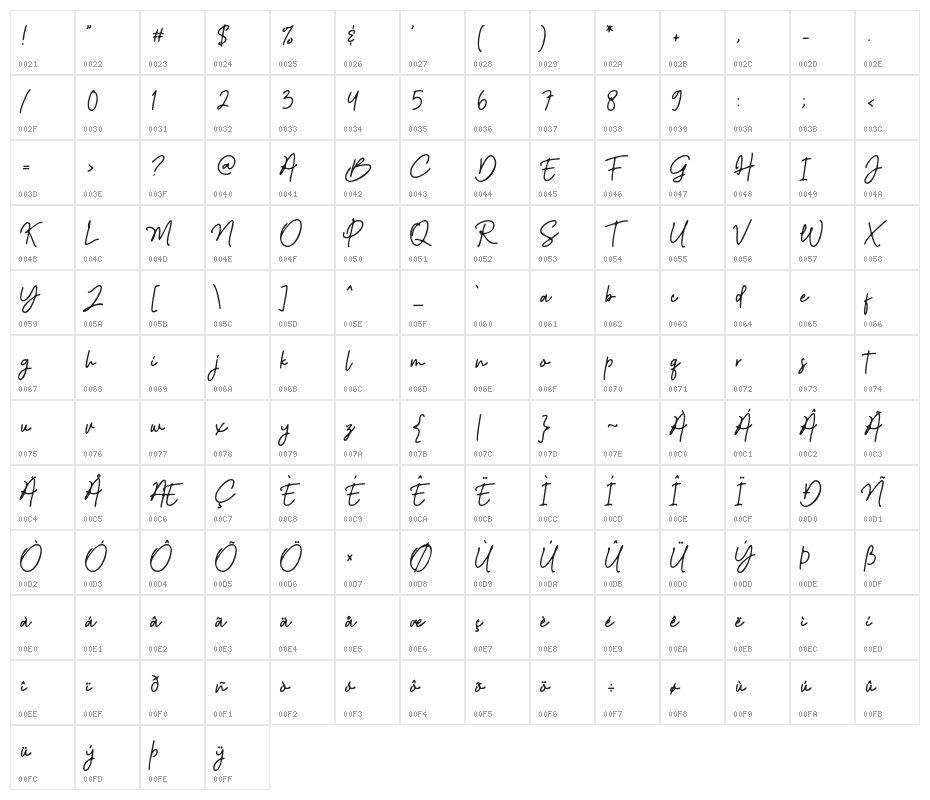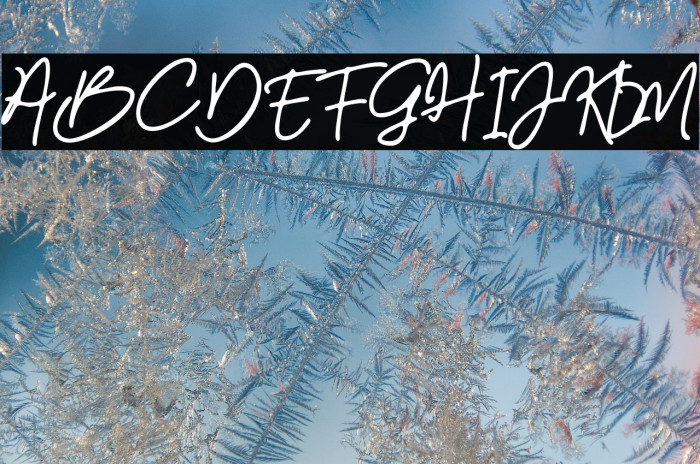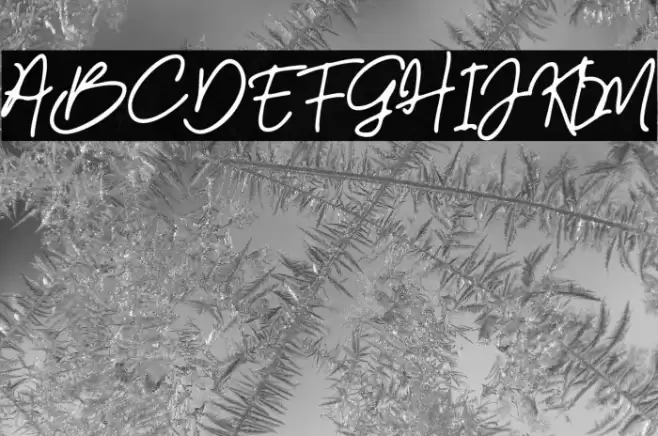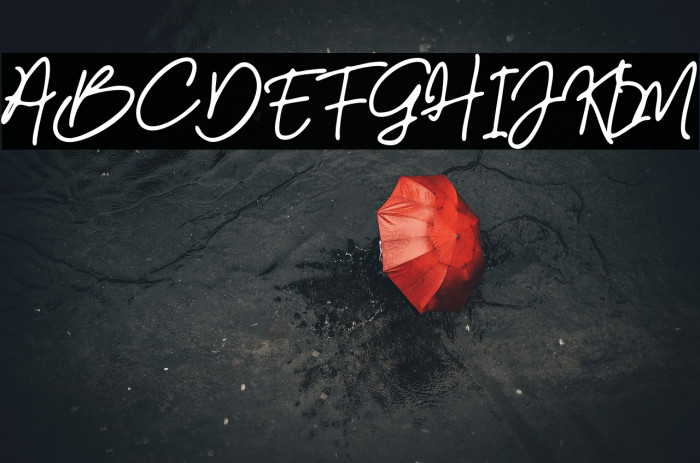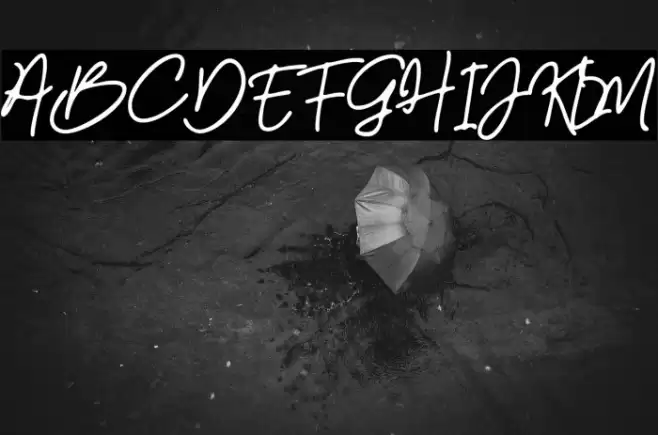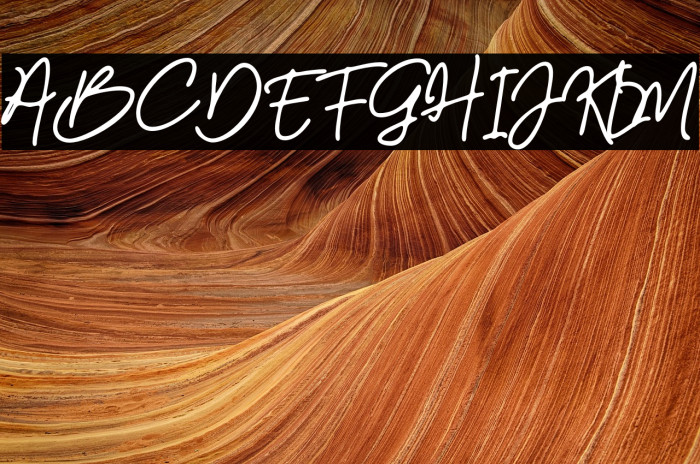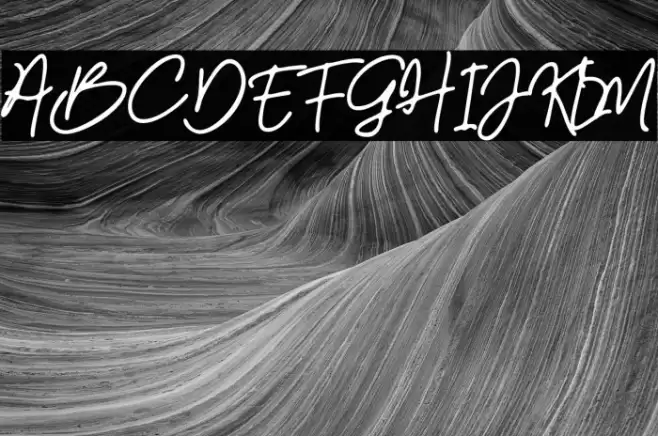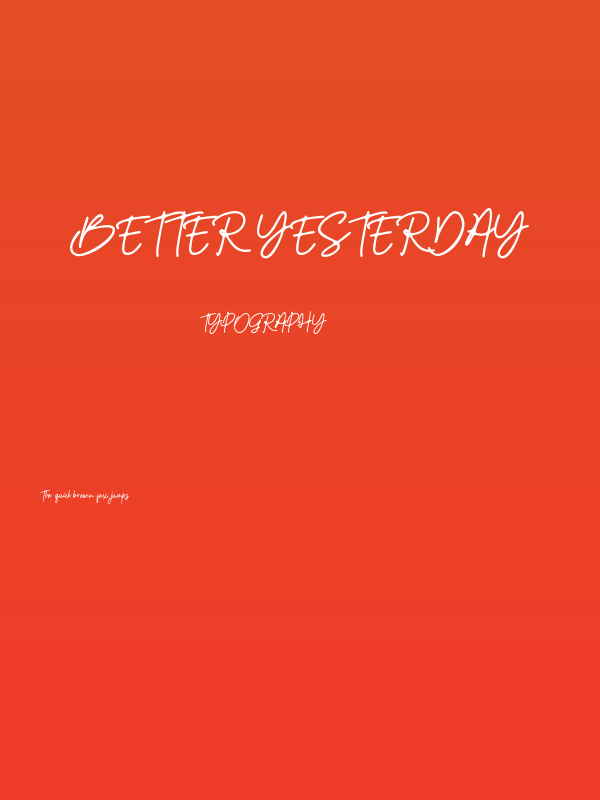
Better Yesterday Font
Better Yesterday Description
This font exudes a casual, handwritten style with a fluid and natural flow. The letters are connected, mimicking the look of cursive handwriting, which gives it a personal and informal touch. The strokes are smooth and slightly varied in thickness, adding to the organic feel. The uppercase letters maintain a consistent height, while the lowercase letters have a slight slant, enhancing the handwritten appearance. The numbers and special characters follow the same style, ensuring uniformity across all characters. This font is ideal for projects that require a personal, approachable, and friendly aesthetic.
| Overall Style | Casual, Personal |
| Use Case | Logos, Invitations, Social Media |
| Proposed Projects | Greeting cards, personal branding, social media graphics, invitations, and informal communications. |